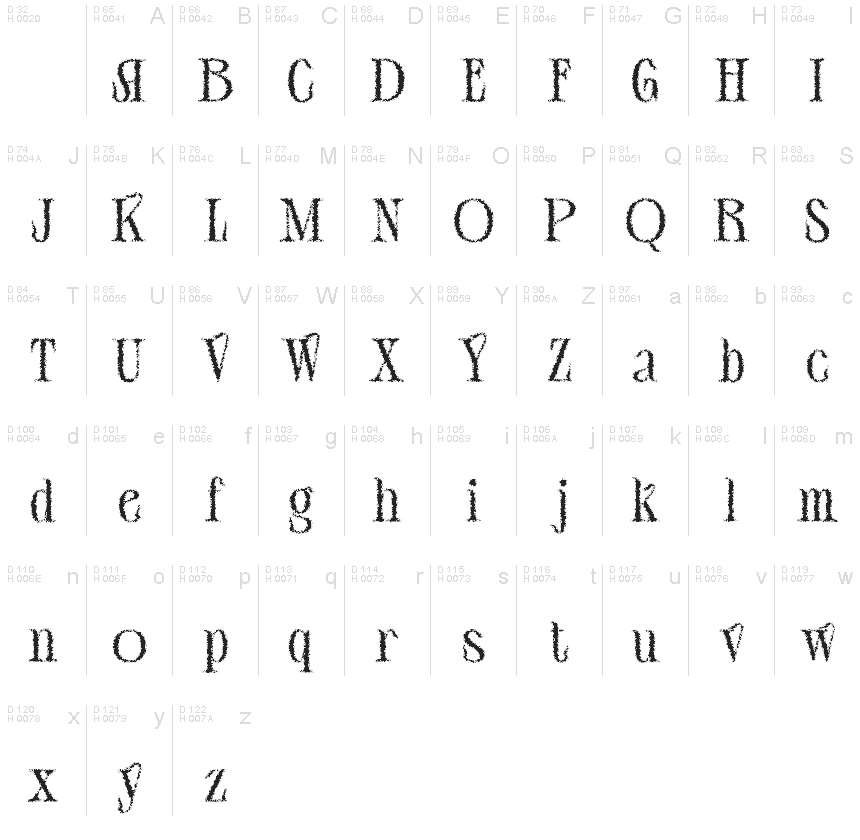
Ceyla Unfocus Demo Regular
Ceyla Unfocus font by Craft Supply Co is a display font with an eroded vintage style and a condensed width. Its artistic flair, emotive expression, and rough aesthetic all give it an eloquent character that enriches its textual passages.